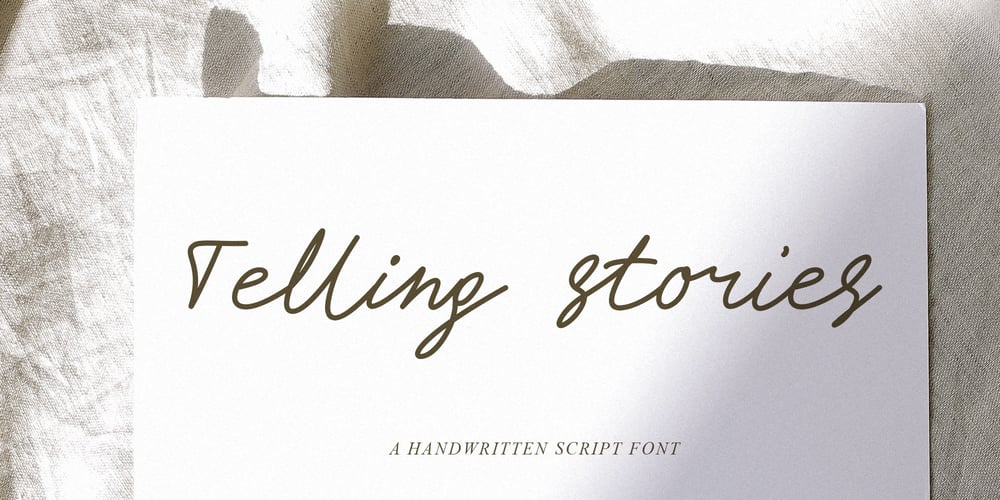
Telling Stories Font Family was designed by Fidan Aslanova and published by Fidan Fonts. Telling Stories contains 1 styles and family package options. Telling Stories is a handwritten classy script font.It includes full set of uppercase and lowercase basic characters, multilingual symbols, numerals, punctuation and ligatures (check the previews in order to see them all).It’s works perfectly for wedding stationery, elegant branding, book cover designs, packaging, album covers, handwritten quotes, greeting cards, social media posts, and many more. Latin-based Language Support.If you want to type with stylistic ligatures make sure you have them turned on (use a capable software like Photoshop, Illustrator, InDesign, Word, Pages etc). Note: If you don’t use this font with these programs stylistic ligatures won’t work.Happy creating!